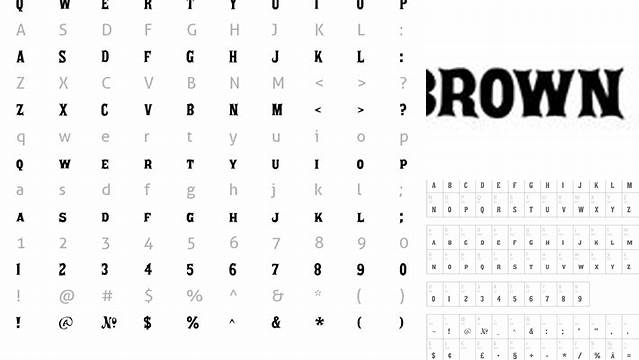
P22 Posada Regular: Free Font Download Guide
Let's dive into the world of typography, guys! Today, we're focusing on a particularly elegant and versatile font: P22 Posada Regular. If you're looking to add a touch of sophistication to your projects without breaking the bank, then you're in the right place. This article will guide you through everything you need to know about P22 Posada Regular, including its characteristics, uses, and, most importantly, where to legally download it for free. So, buckle up, and let's get started!
P22 Posada Regular Font: An Overview
P22 Posada Regular is a typeface that beautifully blends classic and contemporary elements. It's known for its clean lines and balanced letterforms, making it highly readable and aesthetically pleasing. Whether you're designing a website, creating print materials, or working on a digital art project, P22 Posada Regular can bring a touch of elegance and professionalism to your work. Understanding the font's history and design principles can help you use it more effectively, ensuring your projects stand out.
Key Features of P22 Posada Regular
P22 Posada Regular boasts several key features that make it a standout font choice. Its clarity and legibility are paramount, making it suitable for a wide range of applications, from body text to headlines. The font also offers a balanced contrast between thick and thin strokes, contributing to its refined appearance. Moreover, P22 Posada Regular often includes a variety of glyphs and ligatures, giving designers added flexibility and creative options. These features combine to make it a versatile and powerful tool in any designer's arsenal.
Using P22 Posada Regular in Graphic Design
In the realm of graphic design, the applications for P22 Posada Regular are virtually limitless. Its clean and elegant appearance makes it an excellent choice for branding materials, such as logos, business cards, and letterheads. It also works beautifully in editorial design, including magazines, books, and brochures. For web design, P22 Posada Regular can enhance the user experience by providing readable and visually appealing text. Experiment with different weights and styles to achieve the desired effect and elevate your design projects.
P22 Posada Regular for Web Design
When it comes to web design, readability is king, and P22 Posada Regular excels in this area. Its clear and balanced letterforms ensure that website visitors can easily read and comprehend the content. Using P22 Posada Regular for headings and body text can create a cohesive and professional look throughout your website. Additionally, it is important to optimize the font for web use by using web fonts or font formats that are compatible with different browsers. This ensures that your website displays correctly across various devices and platforms, providing a seamless user experience.
P22 Posada Regular in Print Materials
For print materials, P22 Posada Regular maintains its elegance and readability. Whether you're designing posters, flyers, or brochures, this font can add a touch of sophistication to your work. Its clean lines and balanced letterforms ensure that the text remains legible even at smaller sizes. When preparing your designs for print, be sure to embed the font in your document or convert it to outlines to avoid any font substitution issues. This will ensure that your printed materials look exactly as you intended.
Pairing P22 Posada Regular with Other Fonts
Choosing the right font pairing can significantly enhance the overall aesthetic of your design. When working with P22 Posada Regular, consider pairing it with complementary fonts that share similar characteristics or create a pleasing contrast. For example, you might pair it with a sans-serif font for a modern and clean look, or with a more decorative font to add visual interest. Experiment with different combinations to find the perfect balance that suits your design goals. Some popular font pairing tools and resources can help you explore various options and discover harmonious combinations.
P22 Posada Regular and Branding
In branding, consistency is key, and selecting the right font is a crucial part of establishing a strong brand identity. P22 Posada Regular can be an excellent choice for brands that want to convey a sense of elegance, professionalism, and reliability. Its clean and versatile design makes it suitable for a wide range of industries, from corporate to creative. When using P22 Posada Regular in your branding, be sure to incorporate it consistently across all your materials, including your logo, website, and marketing collateral. This will help create a cohesive and recognizable brand image.
Alternatives to P22 Posada Regular
If you're unable to find a P22 Posada Regular Font Free Download or are looking for similar alternatives, there are several excellent options available. Fonts like Garamond, Times New Roman, and Didot share similar characteristics and can provide a comparable aesthetic. Additionally, exploring font foundries and online font libraries can help you discover new and unique typefaces that align with your design needs. Consider the specific requirements of your project and experiment with different fonts to find the perfect fit.